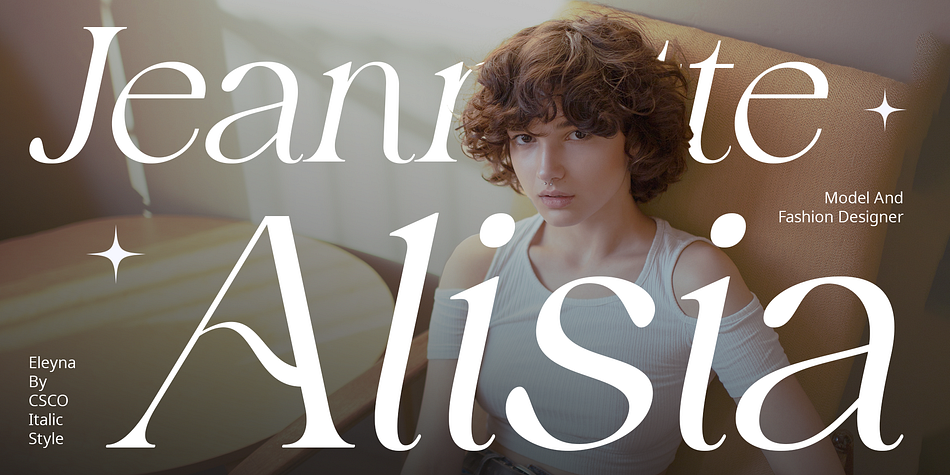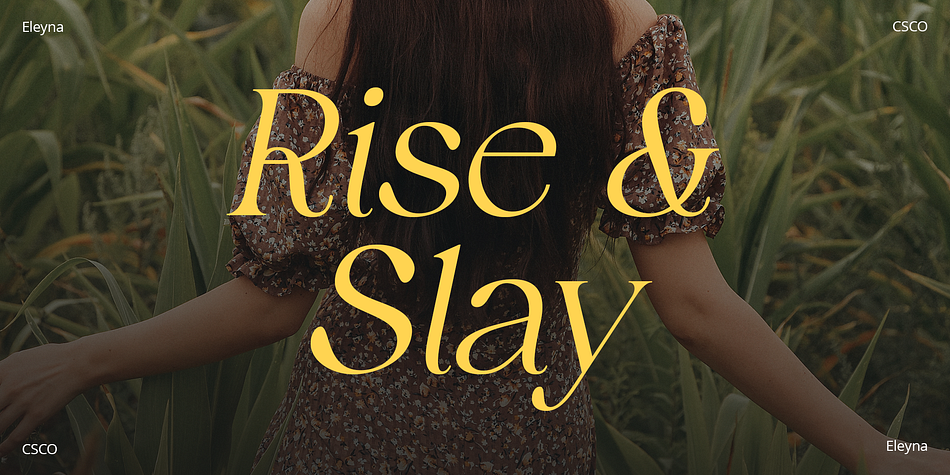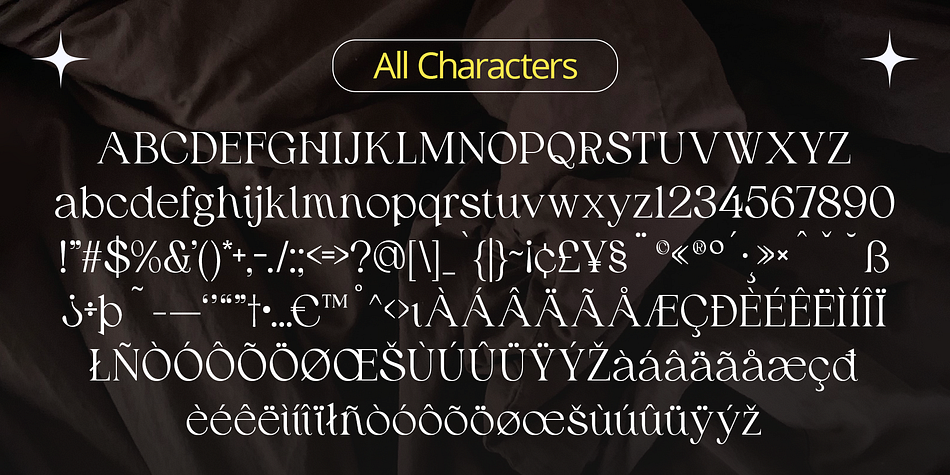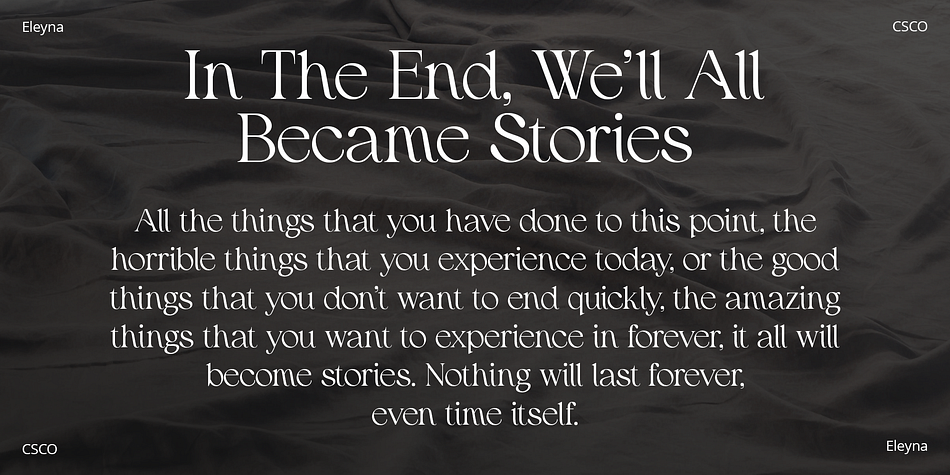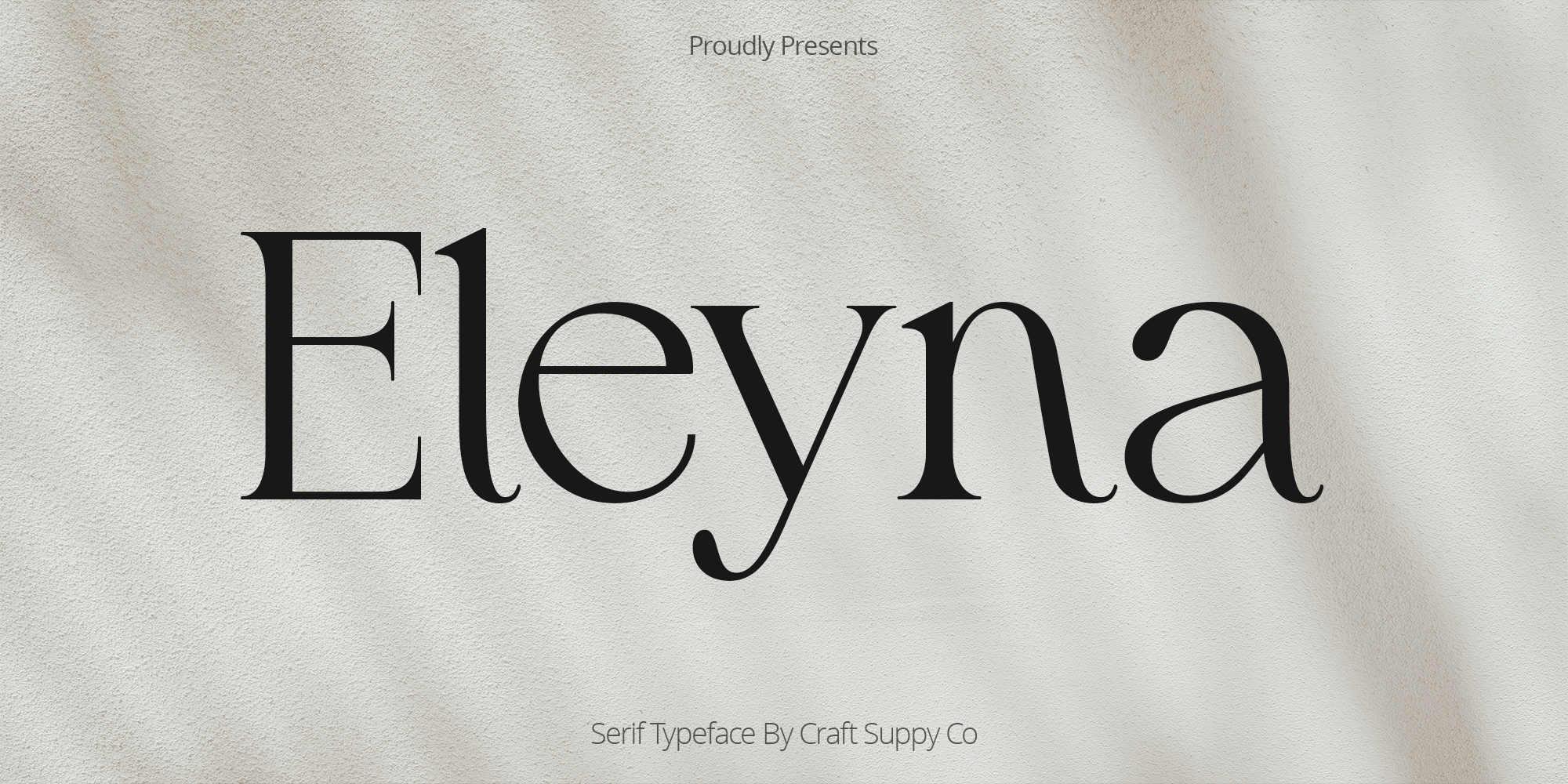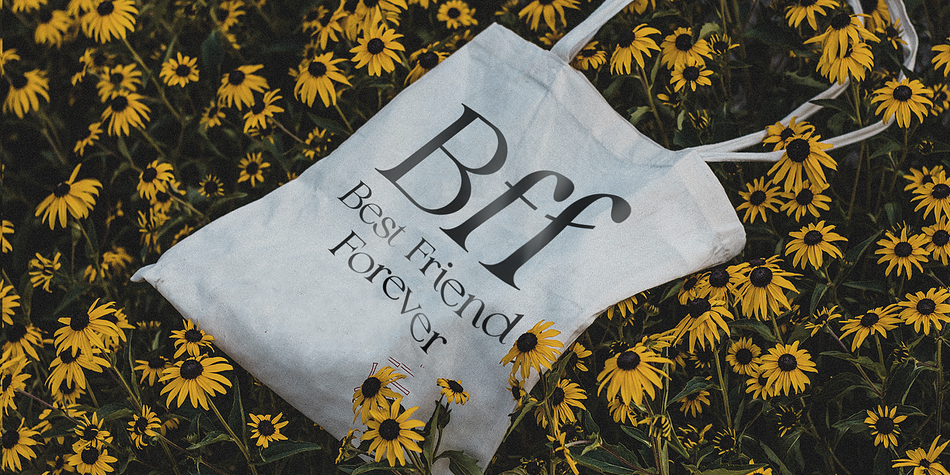
Eleyna
Eleyna is a serif font family. This typeface has two styles and was published by Craft Supply Co.
Eleyna Font: A Symphony of Elegance and Femininity
Timeless Elegance
Eleyna, a serif font, emanates timeless elegance, capturing the essence of sophistication with each gracefully sculpted letterform. Its design reflects a commitment to enduring style, making it an ideal choice for projects that demand a touch of classic refinement.
Subtle Femininity
The font’s subtle curves and delicate serifs intertwine, creating a harmonious balance that radiates a soft and timeless femininity. Eleyna invites a closer look, revealing intricate details that enhance its overall aesthetic appeal.
Versatile Sophistication
Eleyna’s versatility lies in its ability to infuse sophistication into diverse design projects. Whether it’s elegant wedding invitations or corporate branding, Eleyna maintains its refined charm across various applications.
Elevate Your Designs
Eleyna is more than a font; it’s an invitation to elevate your creative expressions. Whether you are crafting captivating wedding invitations or designing compelling brand identities, Eleyna provides a nuanced, yet powerful, touch of refined femininity.